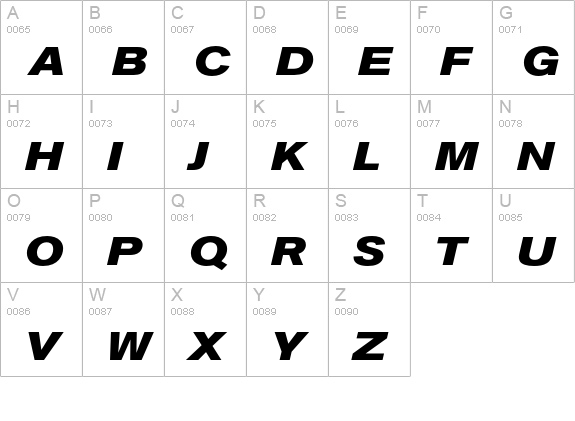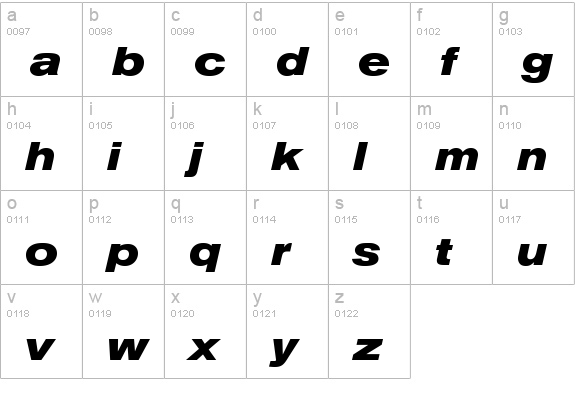
Berthold Akzidenz Grotesk BE Bold Extended Italic is a strong, high-contrast, extended-width, italic variant in the Berthold typeface family \xE2\x80\x94 well suited to headlines, attention-grabbing titles, and strong calls-to-action.
Berthold Akzidenz Grotesk BE Bold Extended Italic is a striking and dynamic typeface that exudes modernity and sophistication. With its bold and extended form, this font commands attention and adds a touch of flair to any design project. The italicized slant of the letters adds a sense of movement and energy, making this font a versatile choice for both headings and body text. What sets Berthold Akzidenz Grotesk BE Bold Extended Italic apart is not only its bold design, but also its exceptional readability and clarity. Whether used in print or digital media, this font ensures that your message is conveyed with impact and style. The best part? Berthold Akzidenz Grotesk BE Bold Extended Italic is available for free download at FontsMarket.com. So go ahead and elevate your designs with this bold and expressive typeface today!